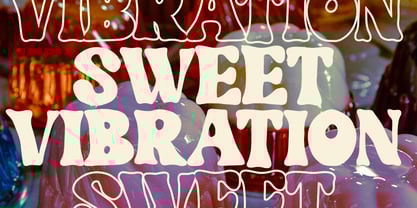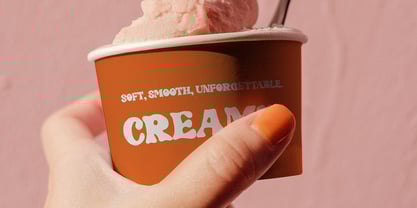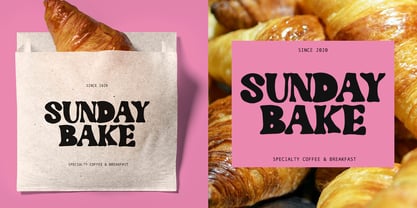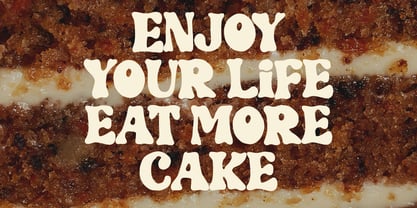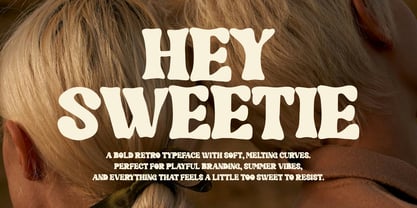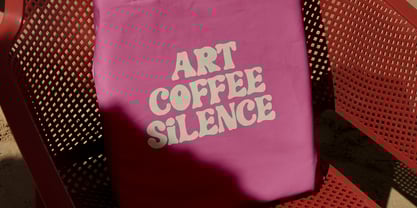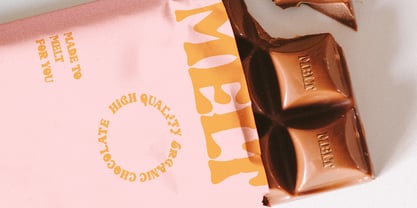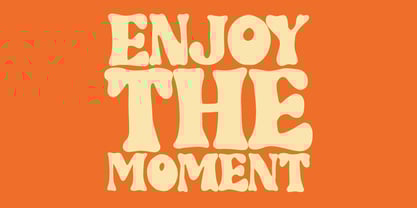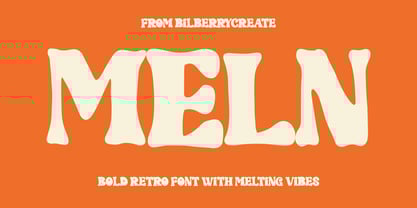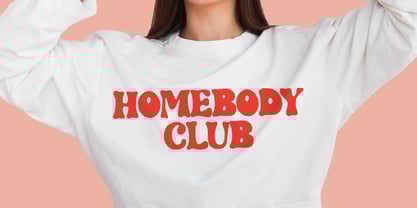
Meln
by Bilberry Create
The Meln Font Family was designed by Daria Cherniackova and published by Bilberry Create. Meln contains 1 styles. More about this family
MELN - Bold Retro Font with Melting Vibes 🍦 Meet MELN, a playful retro typeface inspired by warm summer days, ice cream drips, and 70’s groove. Its soft, wavy shapes and bold character make it perfect for branding, posters, packaging, and anything that needs a splash of nostalgia with a fun twist. Perfect for: Retro & vintage branding Groovy posters and album covers Ice cream shops, cafés, and lifestyle packaging Playful social media graphics Includes uppercase, lowercase, numbers, and punctuation. Add some sunshine to your typography - let it MELN!
Designers: Daria Cherniackova
Foundry: Bilberry Create